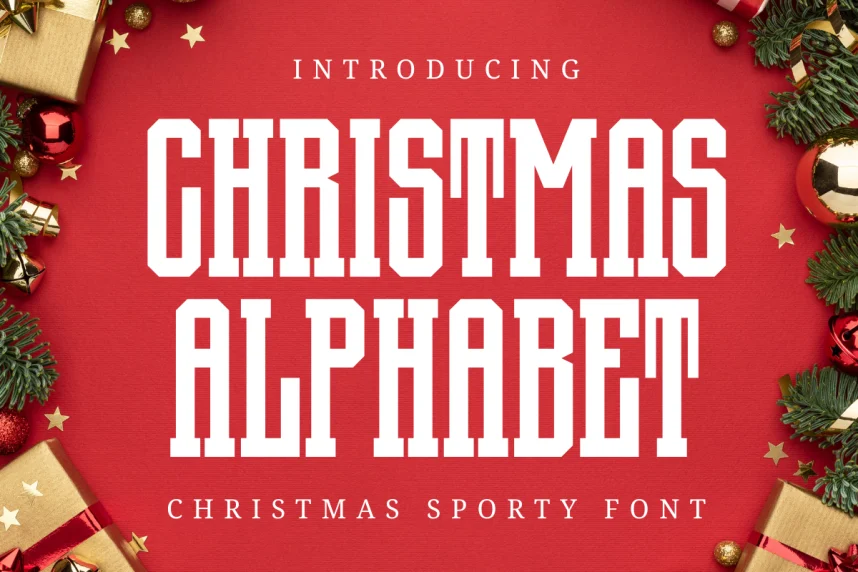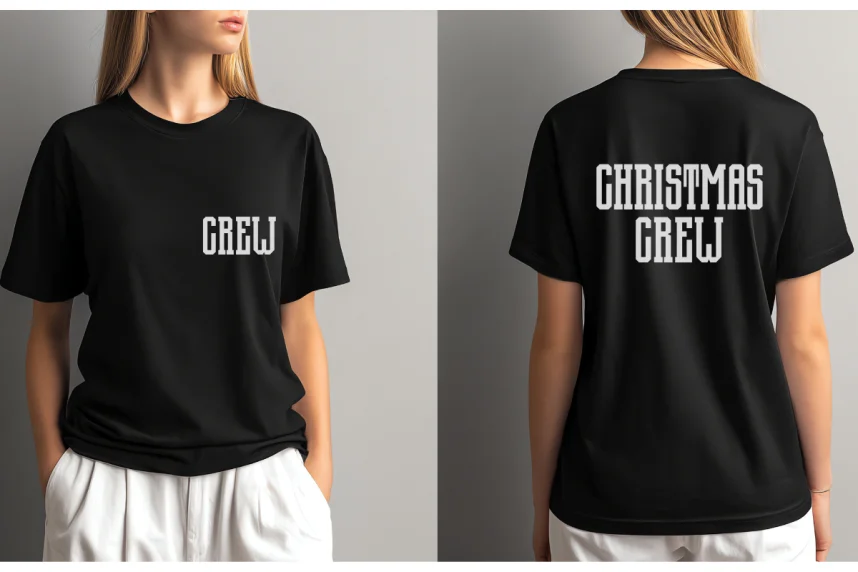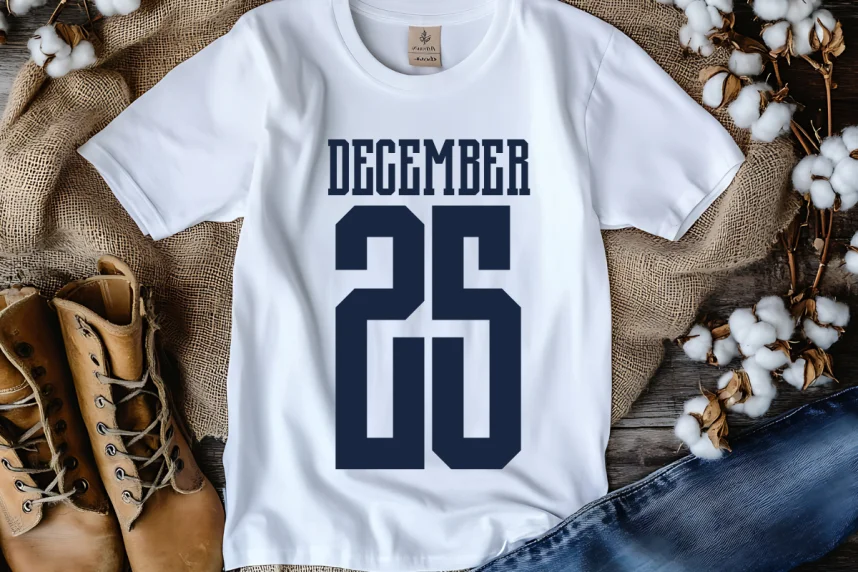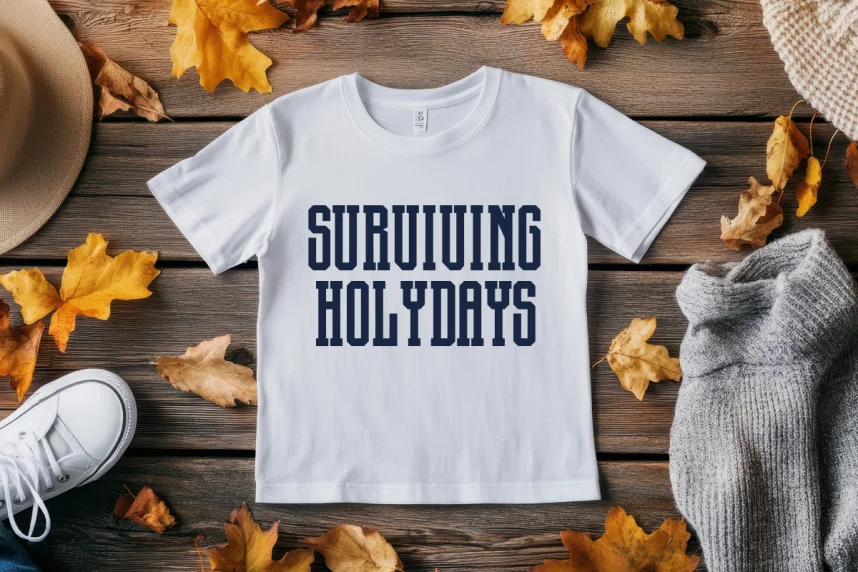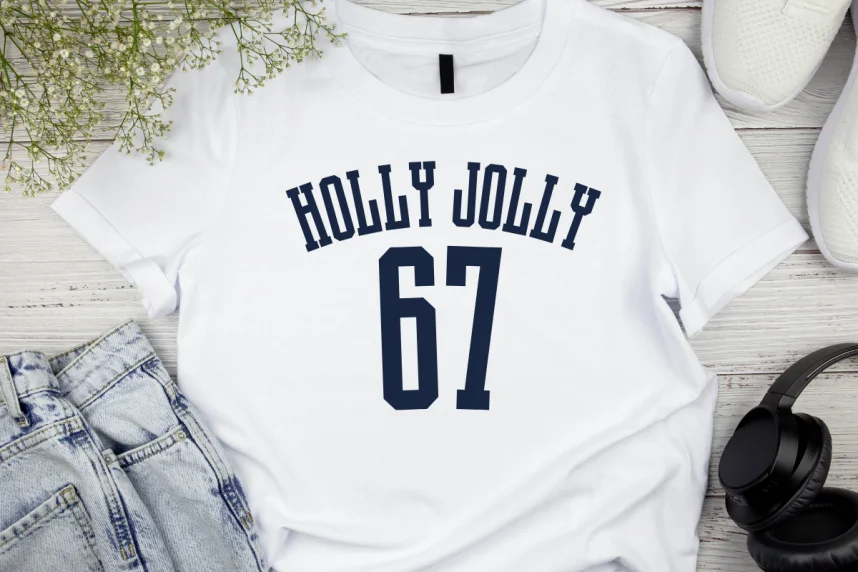
Christmas Alphabet Typeface addresses the challenge of creating seasonal text that feels festive while remaining readable. Designers working on holiday projects often require decorative letterforms designed for short, expressive content.
This typeface is a decorative display font, featuring themed letter shapes, stylized curves, and seasonal design elements. Stroke contrast varies depending on character style, making it more suitable for headlines than long text.